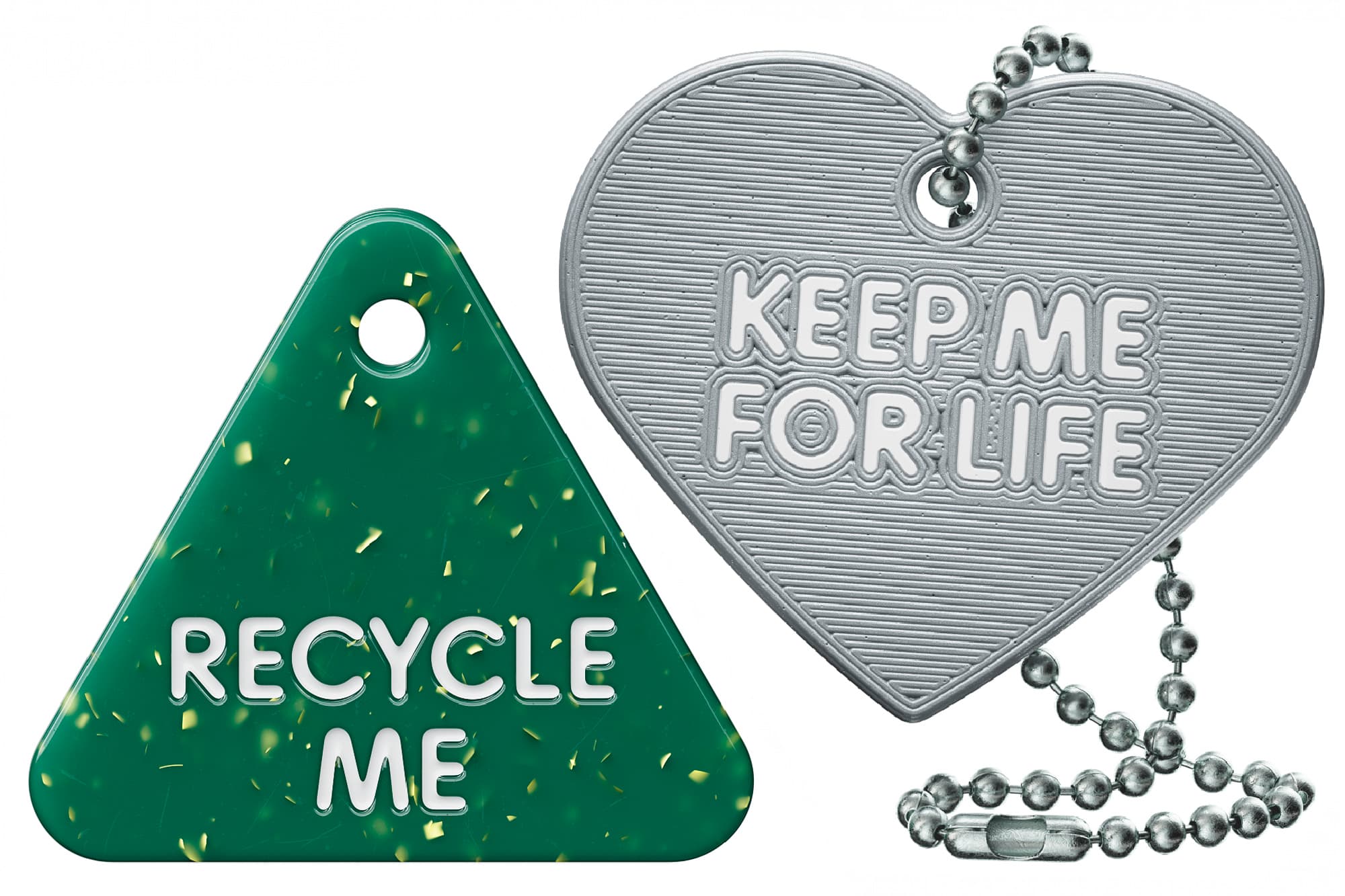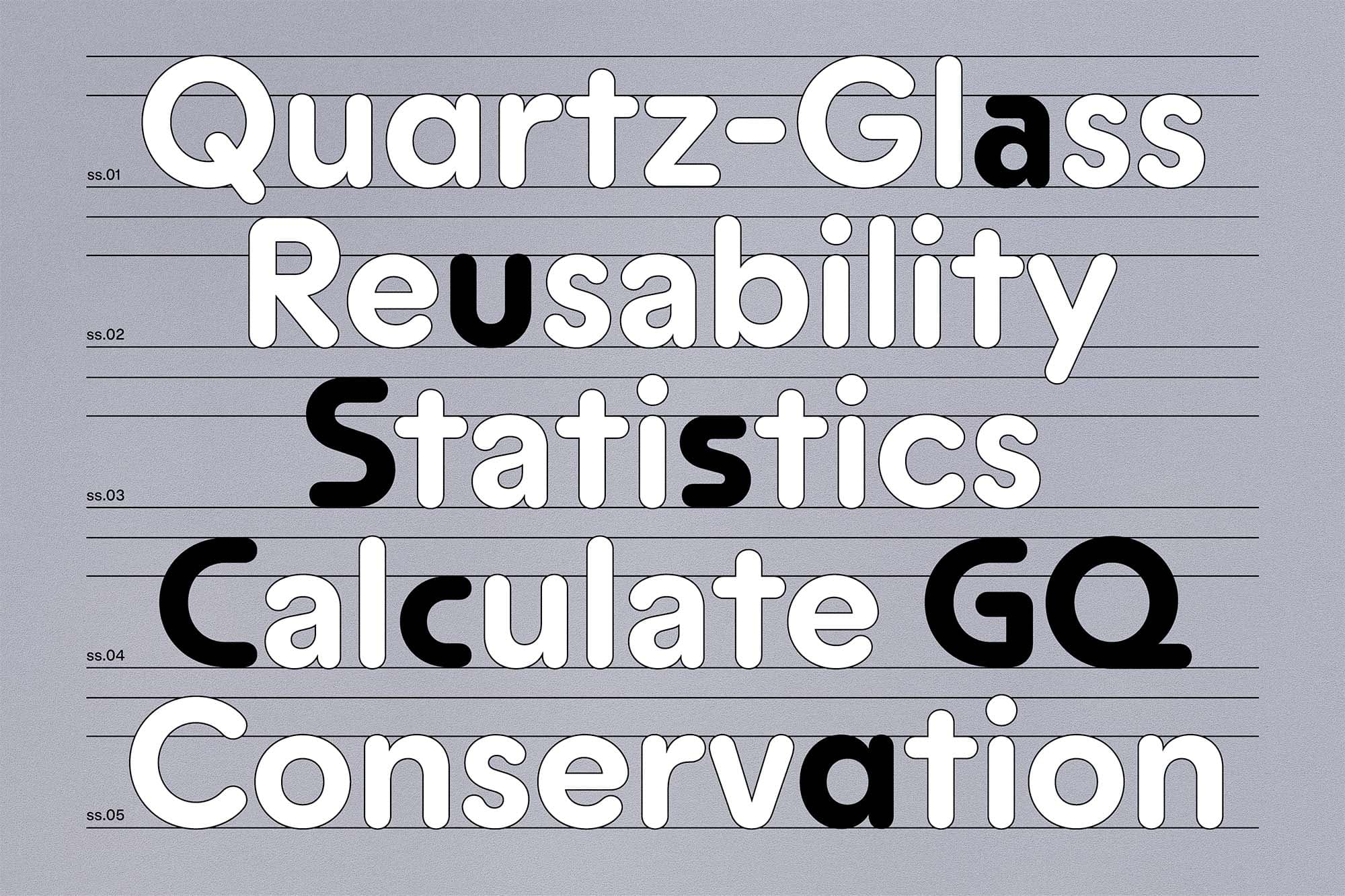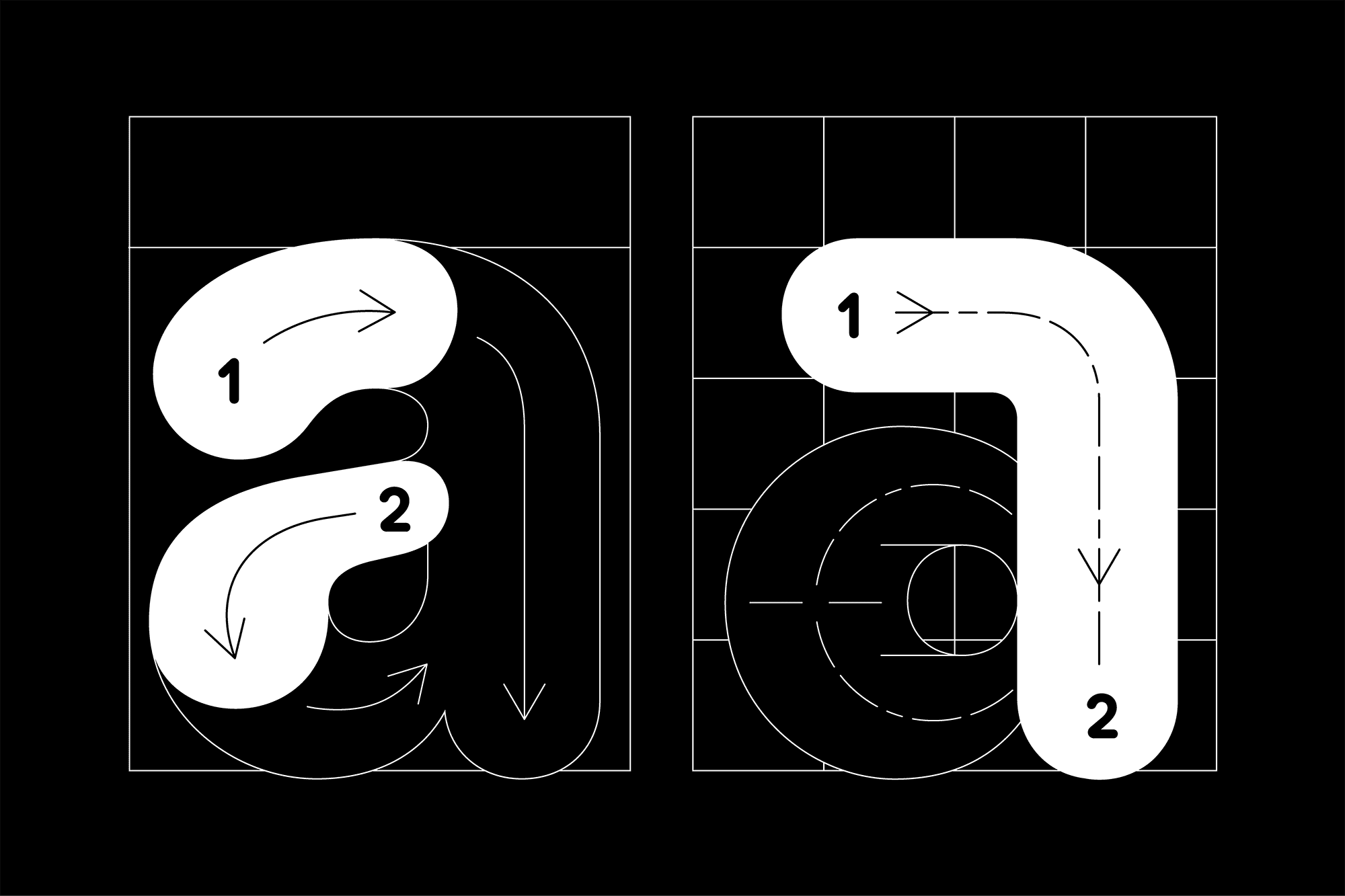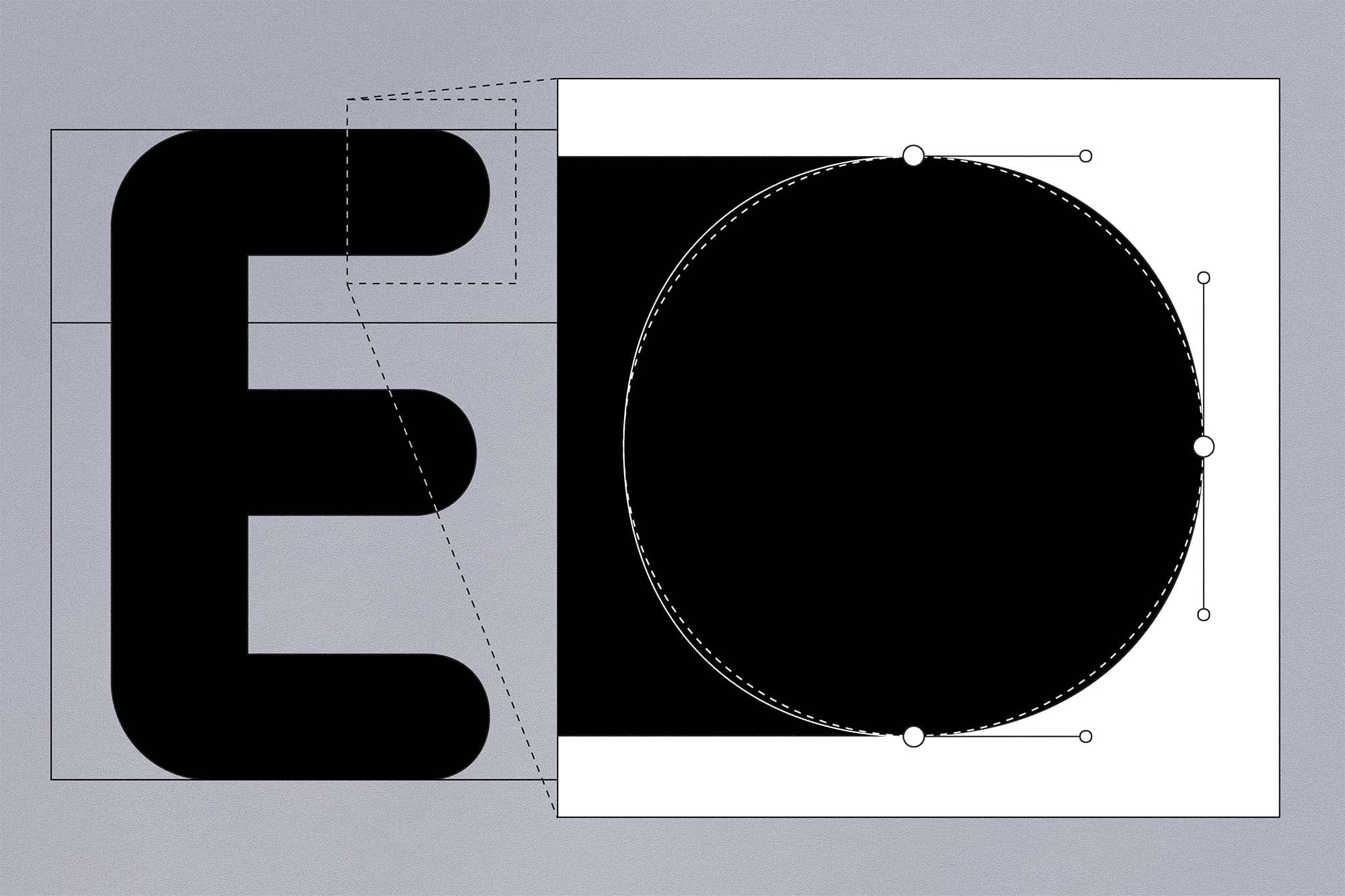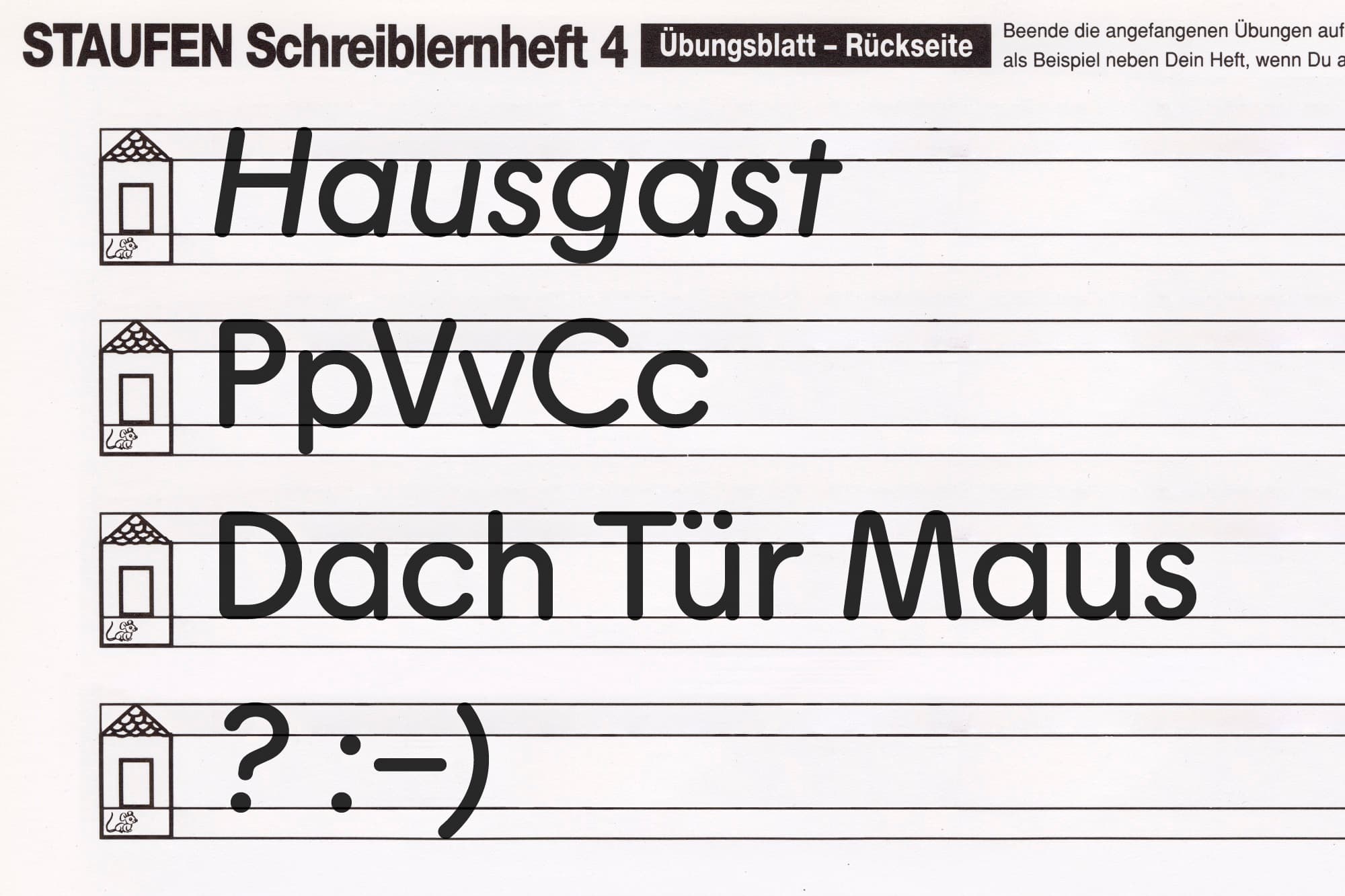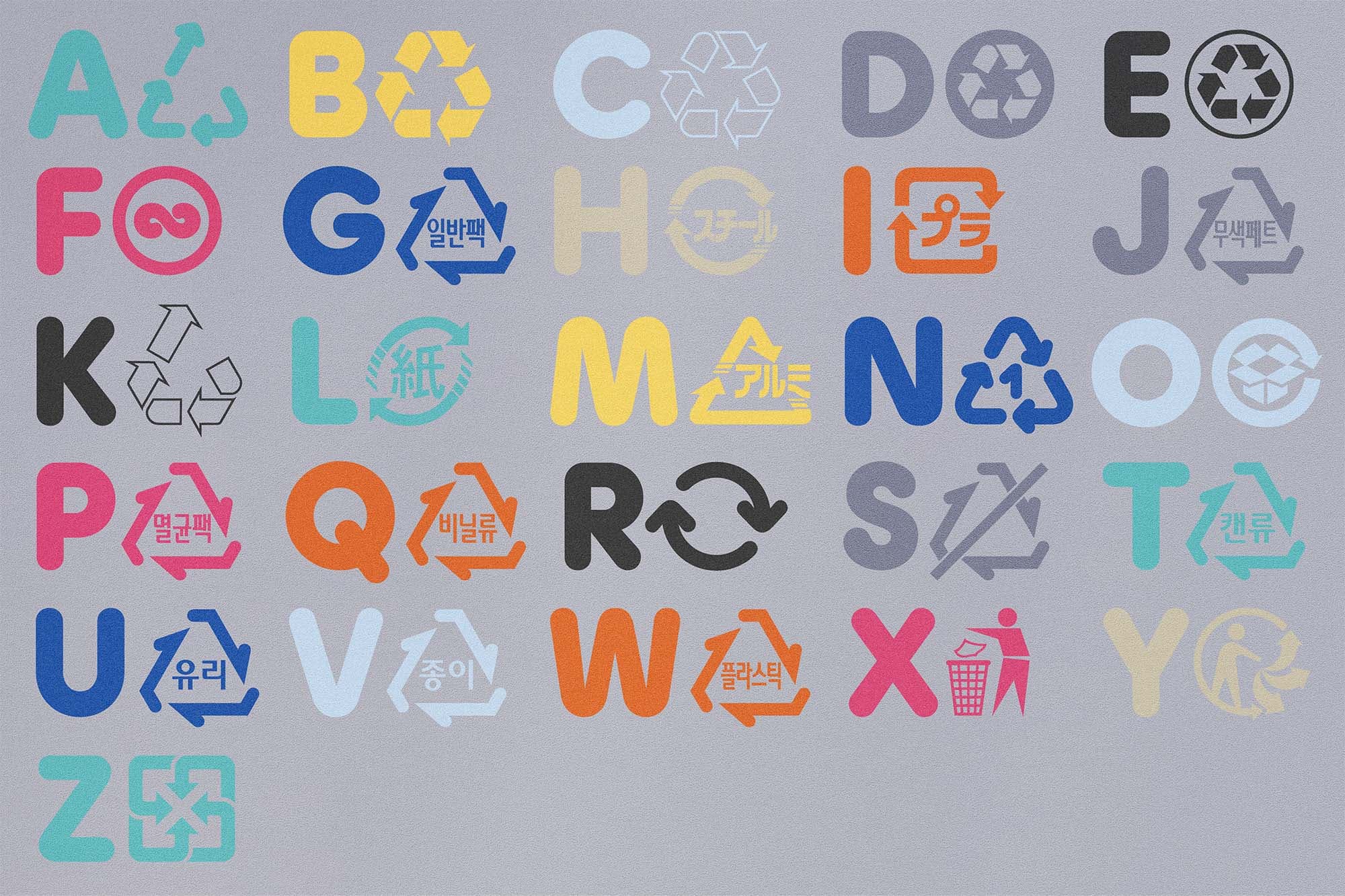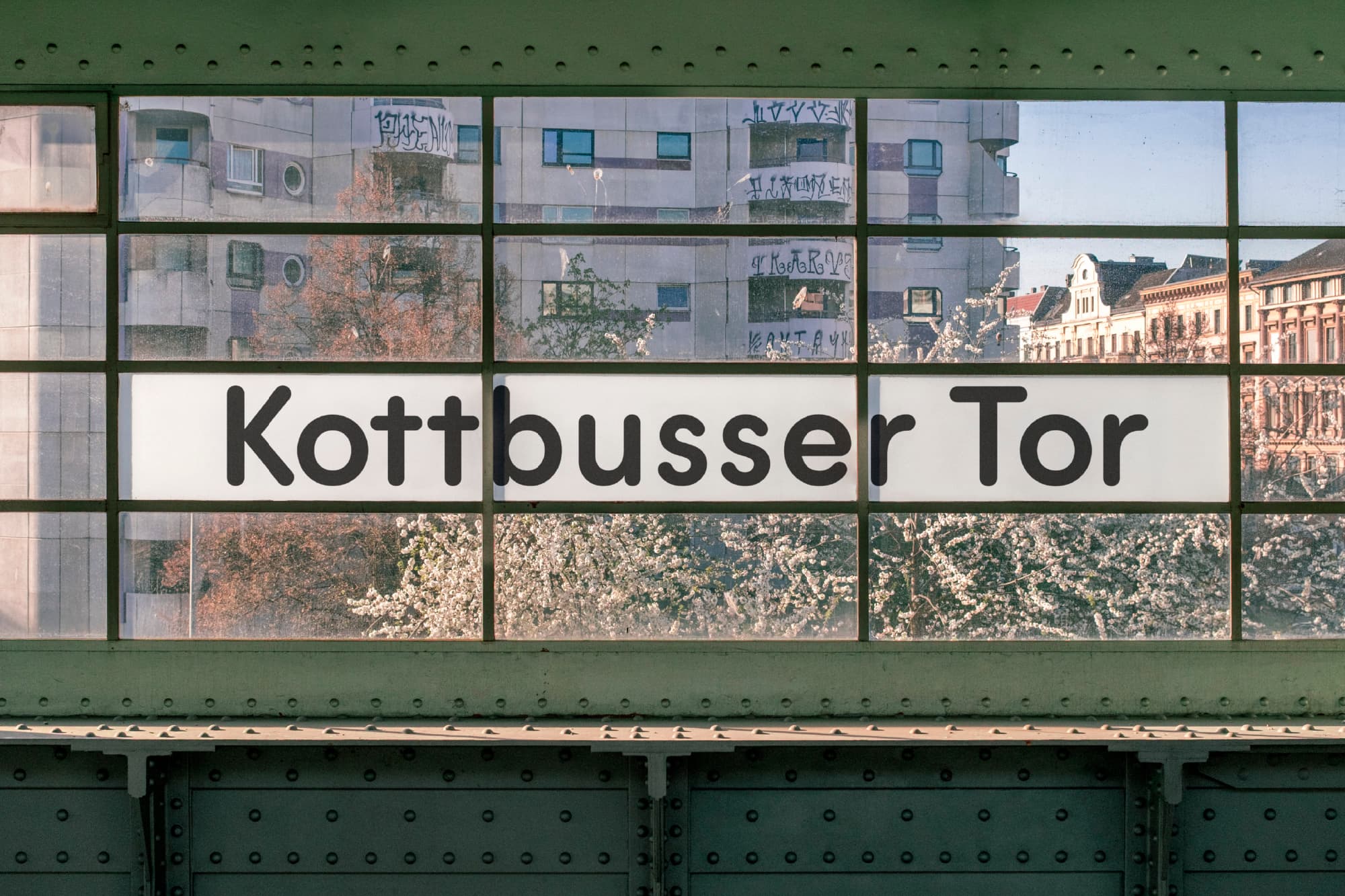
Plastik is a new sans serif family that is moulded and milled from rounded grotesques, geometric letterforms, engraved lettering and the scent of machines still murmuring and spluttering on a Hannover factory floor. It is composite by nature, melding a variety of sources and outputting a product that is totally unique. Its forms have been influenced by vernacular lettering found in industrial settings, and rounded grotesque families. Plastik is rationally rounded; the circular terminals were designed throughout the initial stages of its conception, rather than being tactlessly adhered to characters as a post-production embellishment. Paths that were once aimed to systemize the movement of a hand, or the drill-bit of a machine, have been optically refined to generate a human touch.
Plastik was first inspired by a page from a children’s book printed in 20pt Akzidenz-Grotesk. Designer Sascha Bente imagined a version with rounded terminals and initiated the drawings in 2019. In researching for a separate project, he came across German Normschrifft lettering models published in the early 20th Century¹. These manuals were used to teach students basic handwriting principles. This standardized methodology for lettering meant that anyone with access to basic writing tools could learn how to spell and write properly. In these handwriting models, the ends of letterforms have been left as they are – blunt, stubby, and round. The trace of a writing tool, the remnants of standardised learning, and a new visual language started to emerge.
The Normschrifft letterforms are closely related to those commonly used in engraved metal and plastic signage, one the designer had a close connection to. Sascha’s father worked in a manufacturing plant in Hannover, Germany, milling and machining aluminium for automotive suppliers. Sascha had seen an award given to his father with an engraved plaque and enquired where the letterforms were from, his father replied: »Die Buchstaben kamen aus dem Inneren der Maschine!« “The letters came from inside the machine!”
Not to be pigeon-holed, the files meandered from this linear path. While they might have been expected to retain monolinear strokes in reference to the Normschrift lettering models, or the mechanical ductus present in milled aluminium text, Plastik was drawn with significant modulation, especially in the Bold and Black styles, where they reveal a hint of humor and personality due to the optically corrected terminal shapes. As another way to continue a playfulness within the alphabet, perfect geometric circles are utilized in round letterforms, uncoupling its roots from Akzidenz and bringing some energy to the character set. Alternates for ’S’, ‘C’, ‘G’, and ‘Q’ echo Herbert Bayer’s universal alphabet, allowing Plastik to acquire a secondary Modernist-influenced aura.
The aim of Plastik was to create a harmonious balance between organic and geometric forms. This has been achieved through a delicate balance of drawing, correction and re-drawing, with no one source overpowering another’s influence. Instead Plastik is informed by a melange of different time periods and production processes within the legacy of the sans serif form (from the hand, to metal lathe, to BCPs). Its name recalls softened edges and saturated colors (while also global environmental challenges) fear not – only recycled plastic was utilized in the making of this family.
1 “Normschrift Instructional Booklet,” In Trenches, May 14 2023, https://intrenches.com/2023/05/15/normschrift-instructional-booklet/. During this time in Germany ‘Redis’ nibs were used for Normshrift and related lettering work. Commonly available today as Speedball ‘B Series’ nibs.
Classification: Geometric Rounded Sans
Cuts: 12 (6 styles with italics) + Variable
First sketch: 2019
Released: 2026
Geometric a (ss01)
Geometric u (ss02)
Flat Ss (ss03)
Flat CcGQ (ss04)
Single storey a (ss05)
Alt Arrows (ss06)